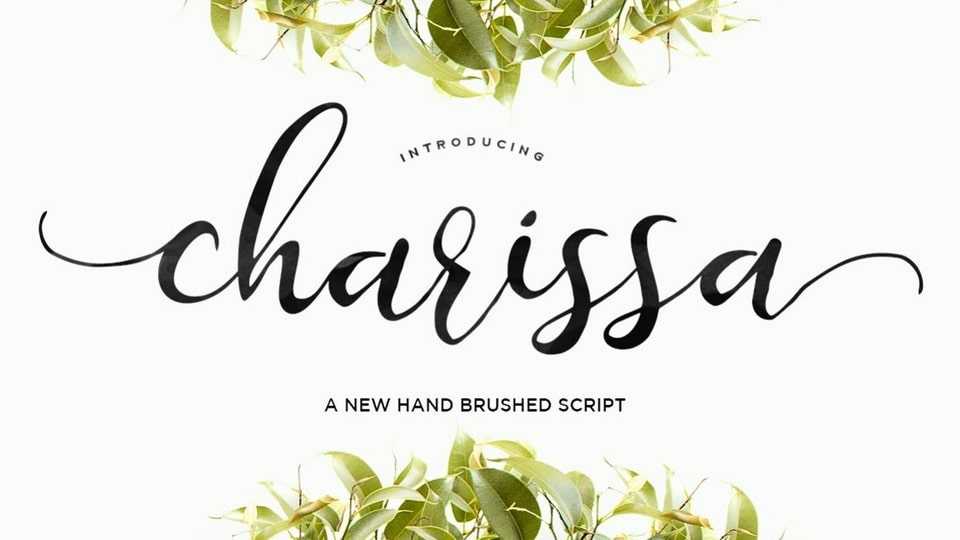
Download Charissa font, a playful and simple, but also elegant script. This versatile script font has a wide range of applications ranging from greeting cards to Valentine’s craft.